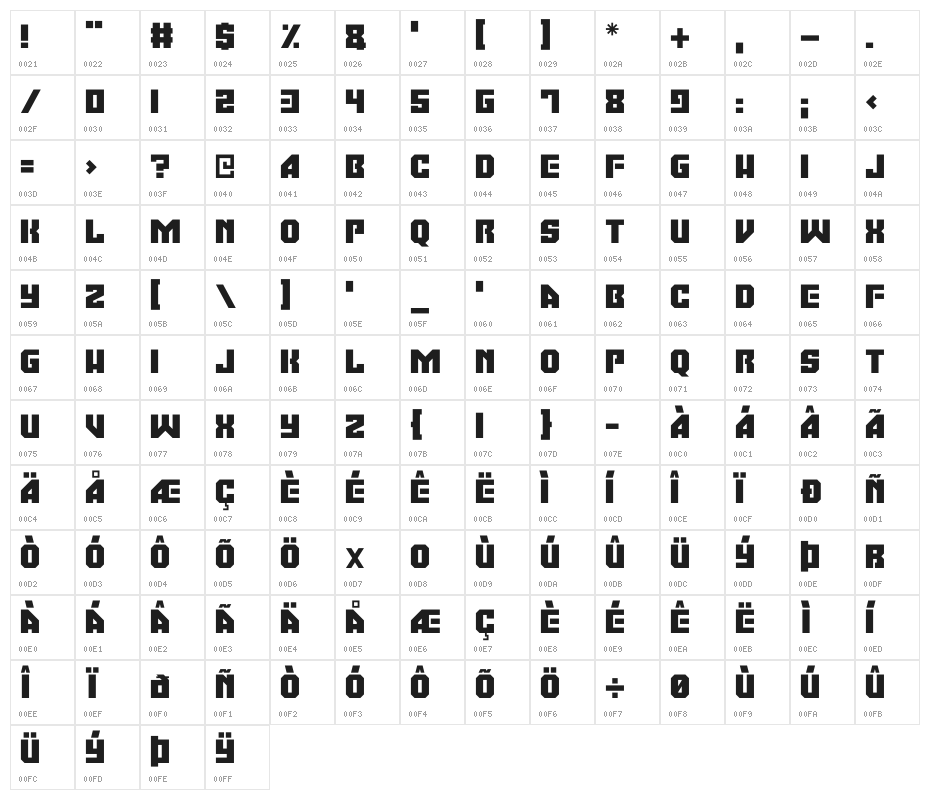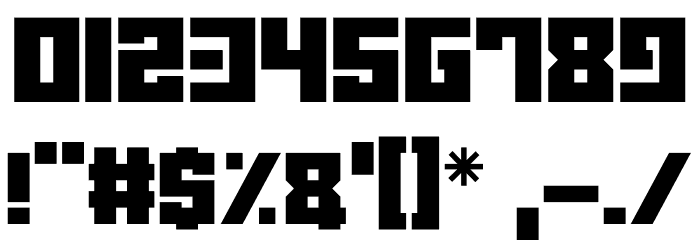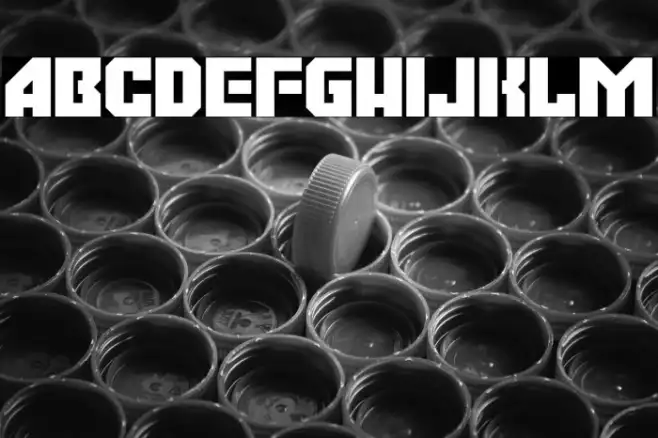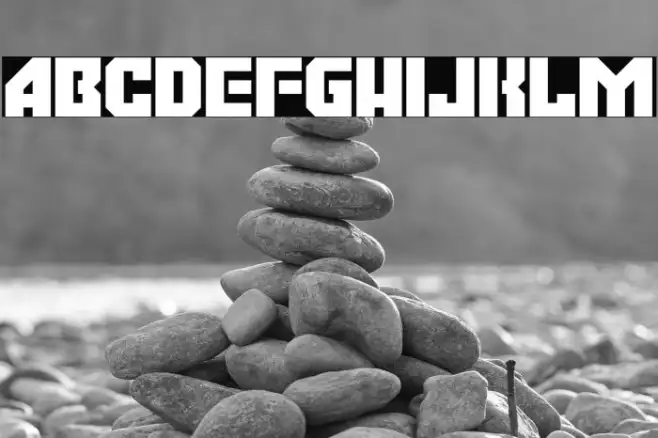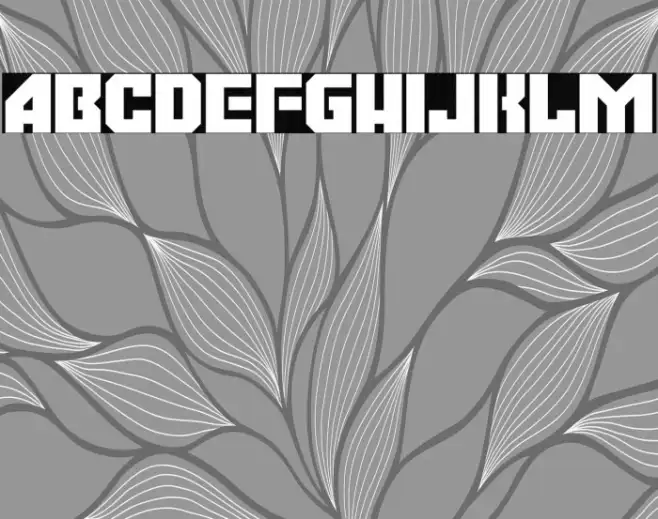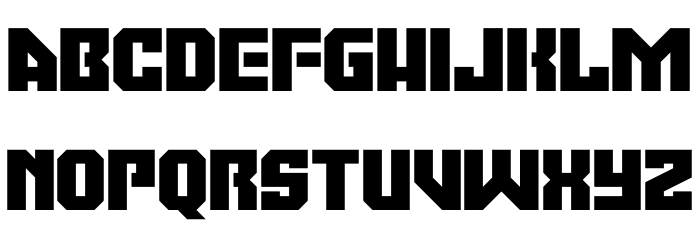
Moonbase Omega Font
Moonbase Omega Description
This font features a bold, geometric design with a futuristic and industrial feel. The characters are constructed with sharp angles and straight lines, creating a sense of strength and modernity. The uppercase letters are particularly striking, with a blocky appearance that commands attention. The numerals and special characters maintain this robust style, ensuring consistency across all glyphs. The overall aesthetic is reminiscent of sci-fi themes, making it suitable for projects that require a bold and assertive typeface.
| Overall Style | Futuristic, Industrial |
| Proposed Projects | Ideal for sci-fi themed designs, video game titles, posters, and branding that requires a strong, modern look. |